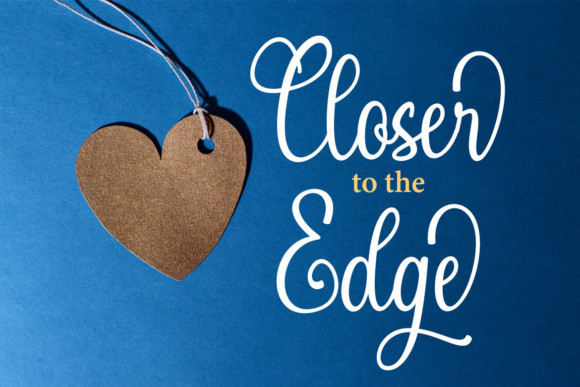
Little Donjuan Font
Little Donjuan FontLittle Donjuan is a ravishing, graceful and cursive handwritten font. It has beautiful and well balanced characters and as a result, it matches a wide pool of designs. Fall in love with its completely different and timeless style and use it to create spectacular designs!